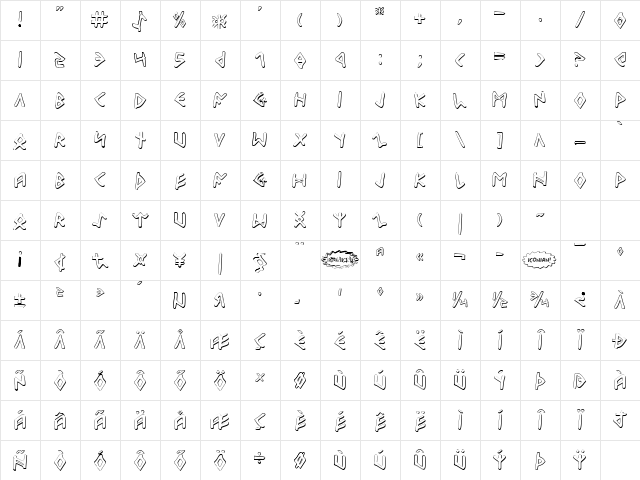
Odinson is built around its visual character rather than neutral utility - its distinctive forms are designed to make an impression at display sizes.